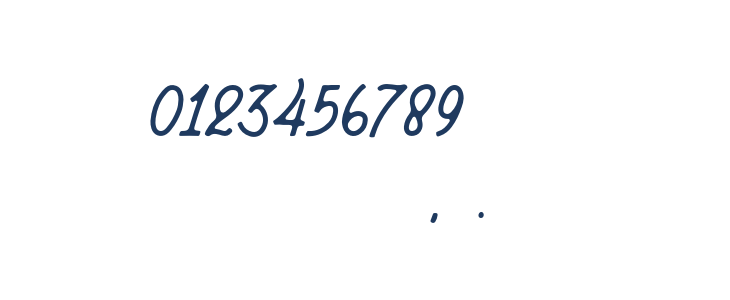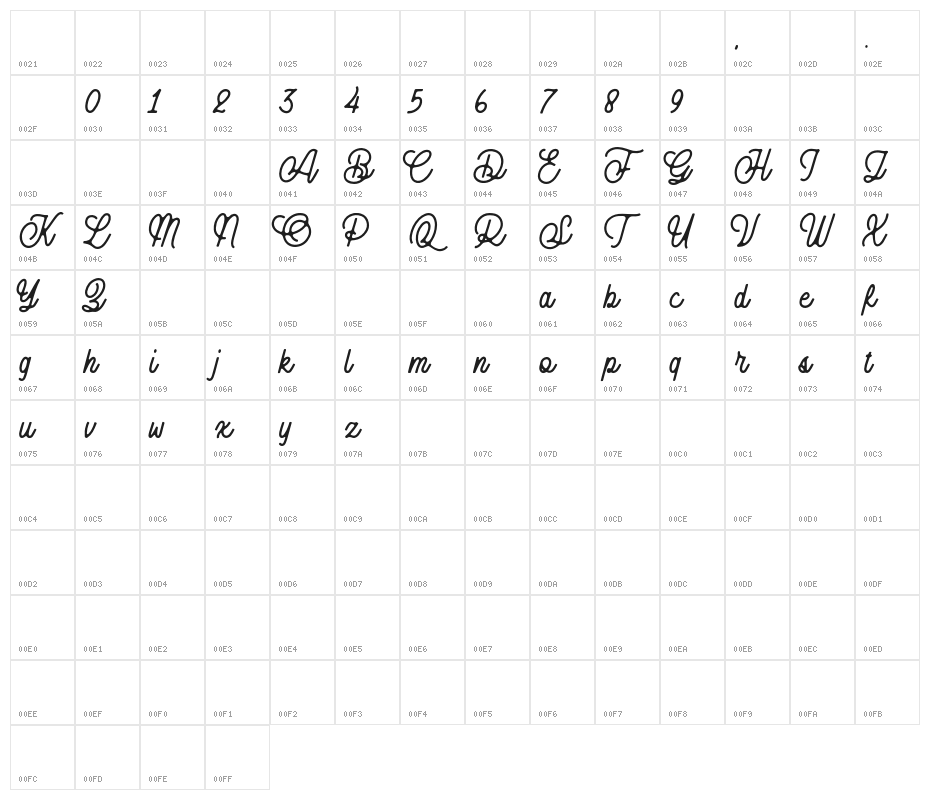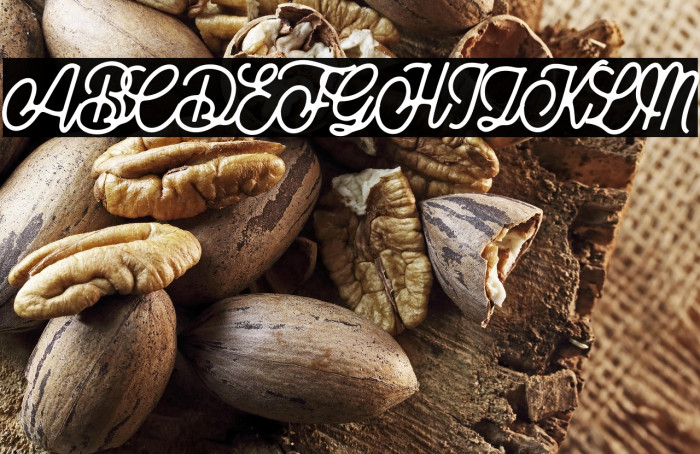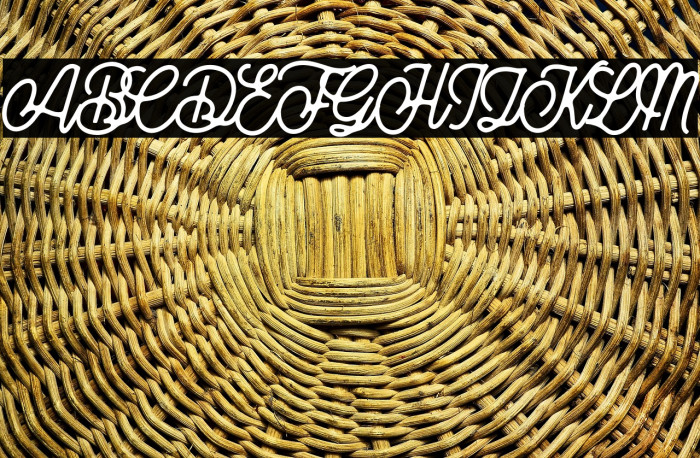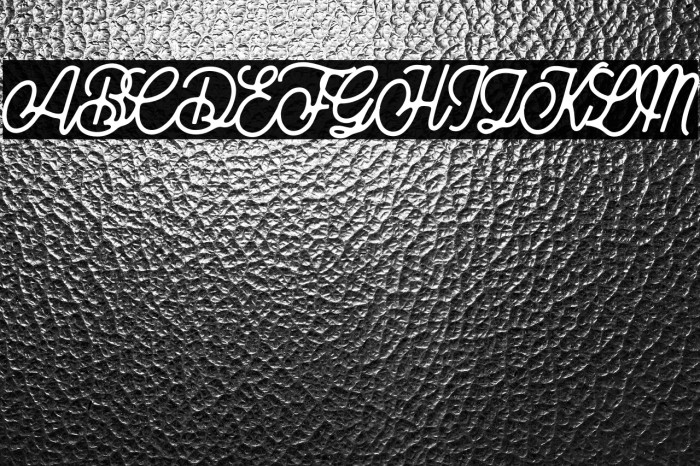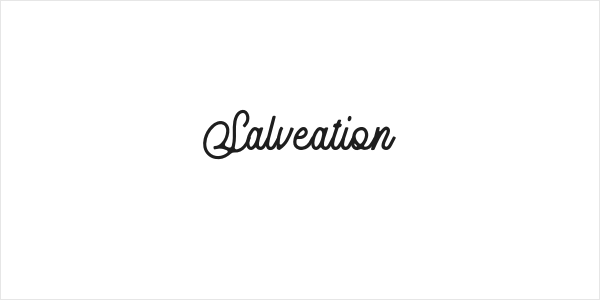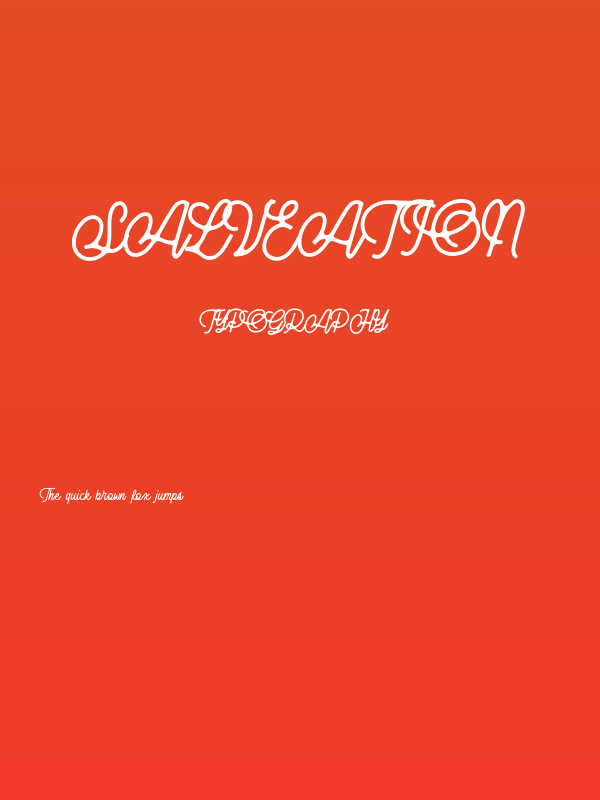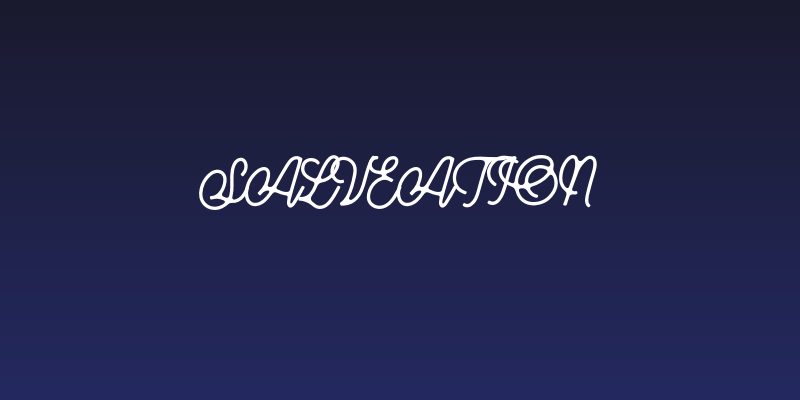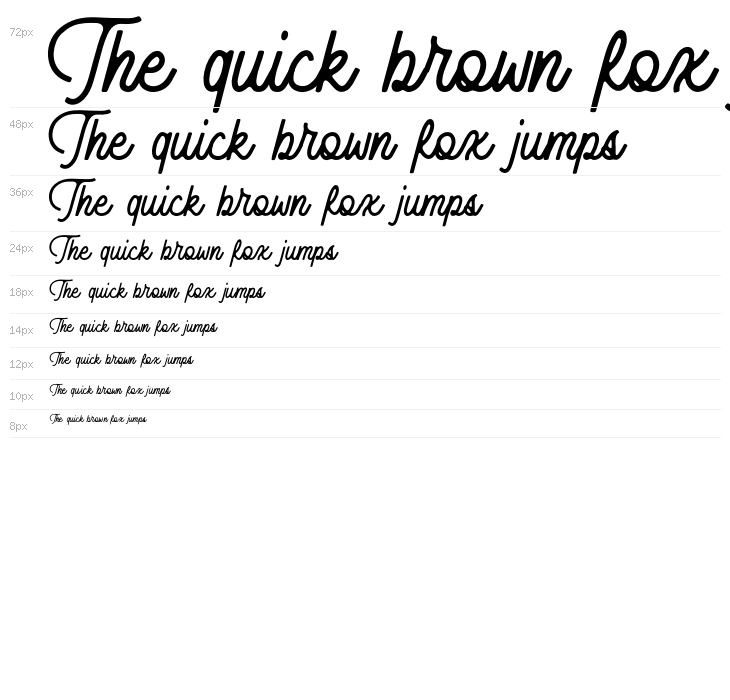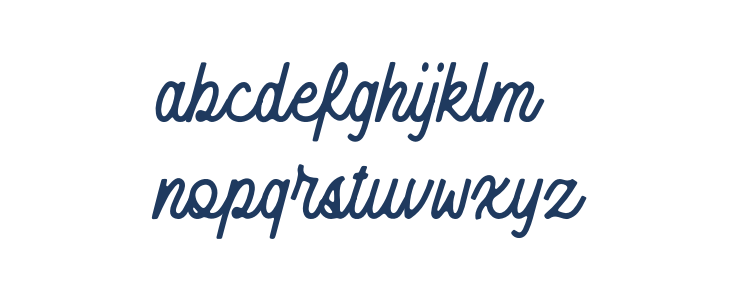
Salveation Font
Salveation Description
This font features a flowing, cursive style that exudes elegance and sophistication. The uppercase letters are intricately connected, creating a seamless and continuous script that is both decorative and legible. The lowercase letters maintain a consistent flow, with gentle curves and loops that enhance the overall aesthetic. The numerals are bold and clear, matching the style of the letters with a slight slant that adds to the dynamic appearance. Special characters are included, maintaining the same fluidity and style. This font is ideal for projects that require a touch of class and elegance, such as wedding invitations, formal event programs, or high-end branding.
| Overall Style | Elegant, Decorative |
| Use Case | Headlines, Invitations, Branding |
| Proposed Projects | Wedding invitations, formal event programs, luxury branding. |